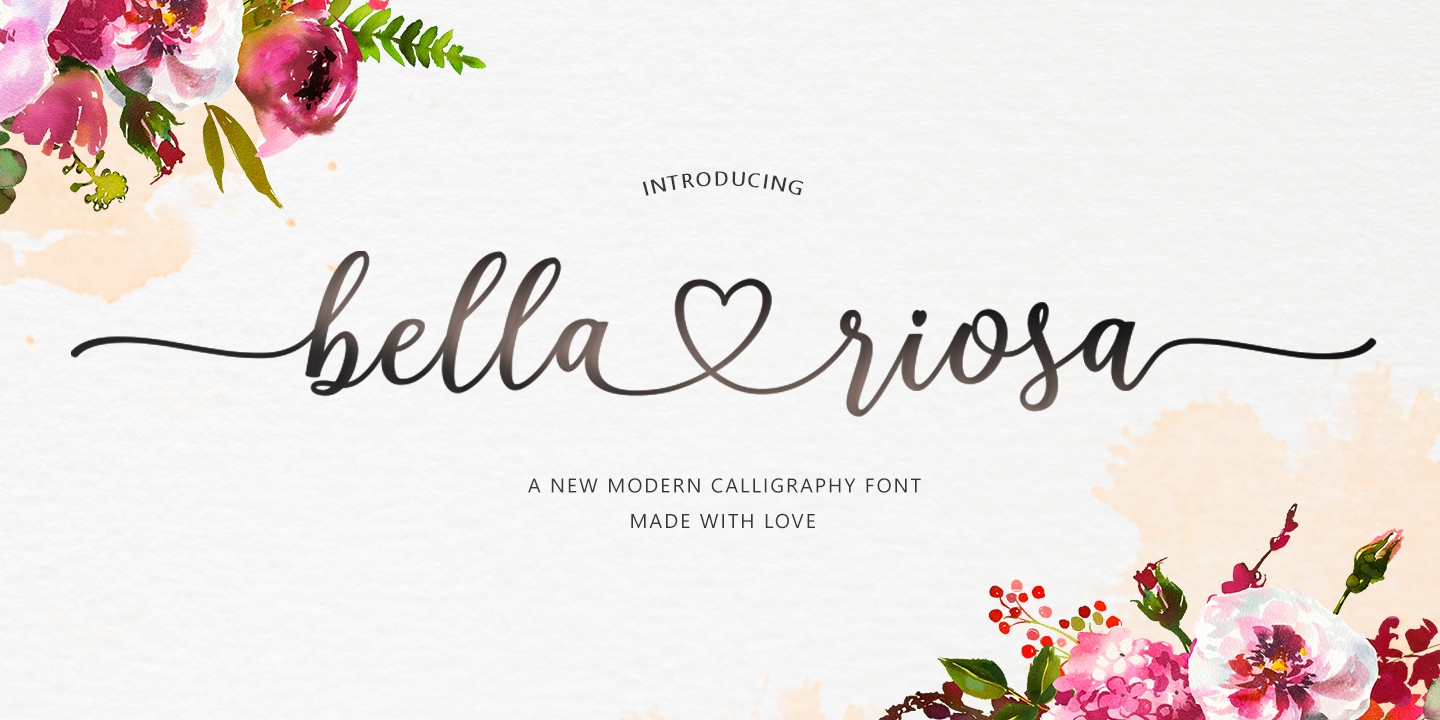
Bella Riosa Font Free Download is a luxurious, elegant script typeface that radiates sophistication and timeless beauty. Featuring flowing curves, delicate swashes, and refined ligatures, Bella Riosa Font is perfect for wedding invitations, branding, logos, packaging, social media graphics, and editorial design. Its graceful, handcrafted look makes it ideal for projects that aim to convey romance, class, and high-end appeal.
Whether you’re crafting elegant stationery, luxury brand identities, or standout marketing materials, Bella Riosa Font adds a sophisticated, artistic touch to your work. Its balance of style and readability makes it perfect for both print and digital media, enhancing your designs with a refined, romantic flair.